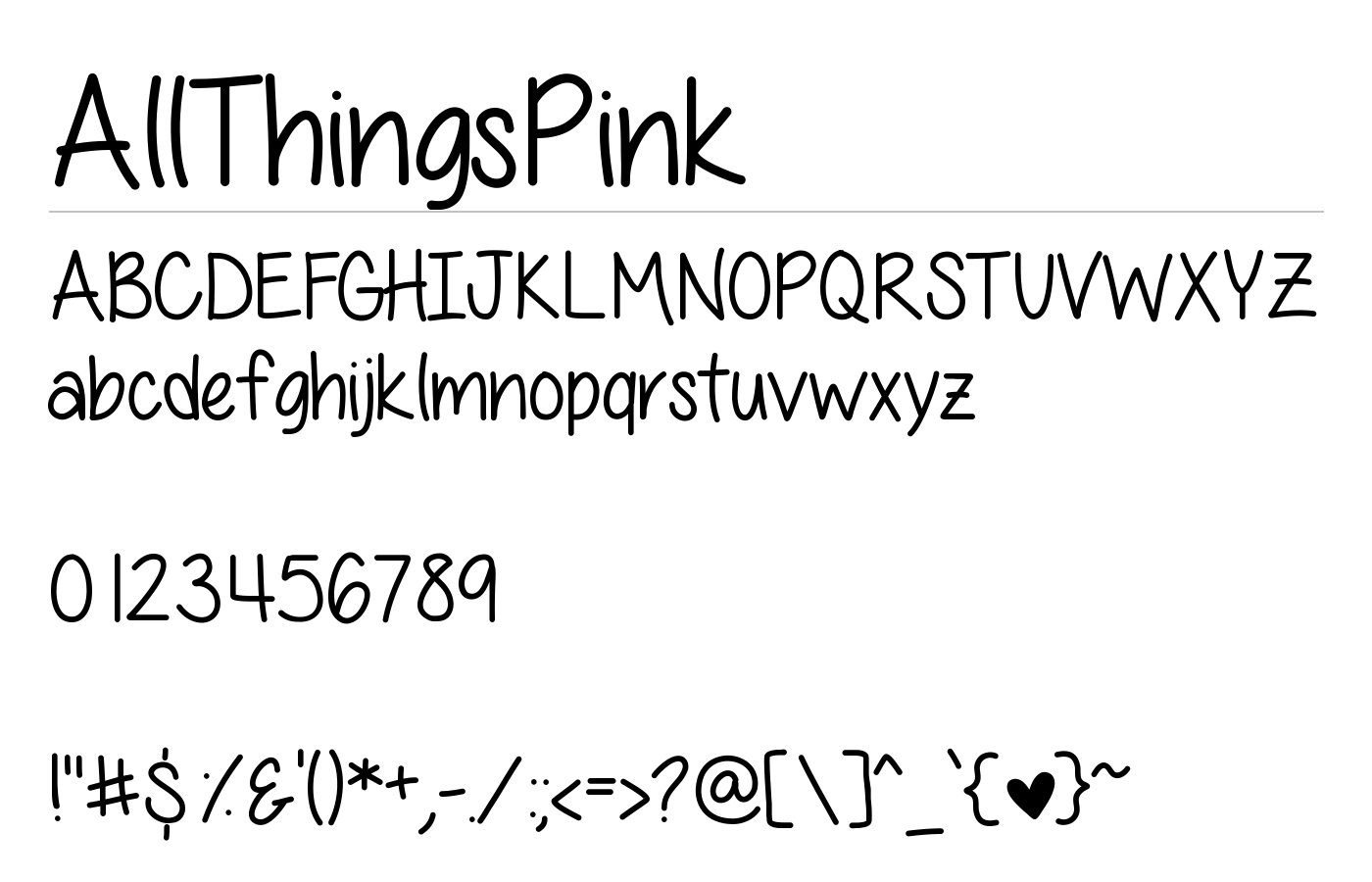
All Things Pink is a playful and friendly handwritten sans serif font with a casual, organic feel. Its tall, slender letterforms and consistent stroke weight create a light, airy appearance that's perfect for informal, youthful designs. This font works well for branding, invitations, and projects aiming for a warm, approachable vibe.
All Things Pink Font
About All Things Pink Font